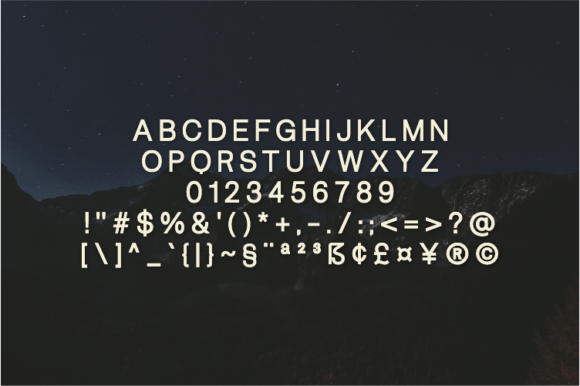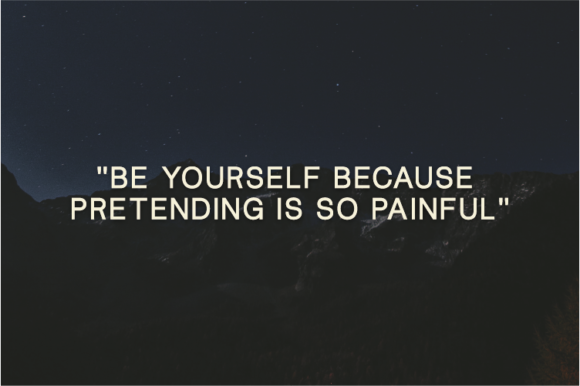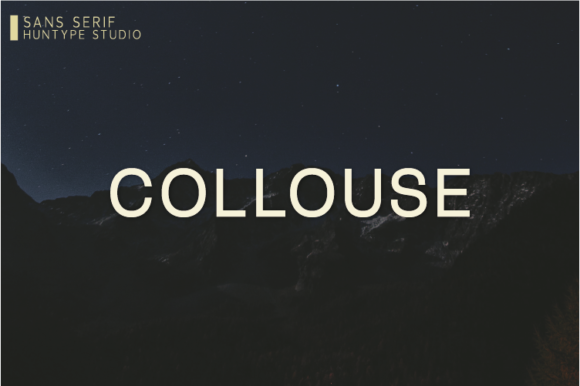
Introducing Collouse Font: The Ultimate Sans Serif for Modern Designs
In the world of typography, fonts play a crucial role in making or breaking a design. A well-chosen font can elevate your project, making it more visually appealing and engaging. If you’re a designer or crafter looking for a stylish and simple sans serif font, look no further than Collouse Font. In this article, we’ll dive into the features and benefits of Collouse, and explore why it’s a must-have for any design enthusiast.
What is Collouse Font?
Collouse is a modern sans serif font that exudes a clean, authentic, and smooth vibe. Its simplicity and elegance make it an excellent choice for a wide range of design projects, from branding and advertising to packaging and digital media. With its sleek lines and minimalist aesthetic, Collouse is perfect for designers who want to add a touch of sophistication to their work.
Key Features of Collouse Font
- Clean and Simple Design: Collouse boasts a clean and simple design that makes it easy to read and versatile for various design applications.
- Sans Serif Style: The font’s sans serif style gives it a modern and fresh look that’s perfect for contemporary designs.
- Smooth and Authentic Vibe: Collouse has a smooth and authentic vibe that adds a touch of elegance to any design.
- Highly Legible: The font is highly legible, making it suitable for body text, headings, and titles.
Benefits of Using Collouse Font
So, why should you choose Collouse Font for your next design project? Here are just a few benefits of using this versatile font:
- Universal Appeal: Collouse has a universal appeal that makes it suitable for a wide range of design projects, from corporate branding to personal crafts.
- Easy to Pair: The font is easy to pair with other fonts, making it a great addition to any designer’s font library.
- Scalable: Collouse is highly scalable, ensuring that it looks great in any size or resolution.
- Time-Saving: With Collouse, you can save time and effort in your design process, as its clean and simple design requires minimal adjustments.
In conclusion, Collouse Font is a stylish and simple sans serif font that’s perfect for modern designs. Its clean, authentic, and smooth vibe makes it a versatile choice for a wide range of design projects. Whether you’re a designer, crafter, or digital artist, Collouse is a must-have font that can elevate your work and add a touch of sophistication. So why wait? Download Collouse Font today and experience the power of elegant typography!